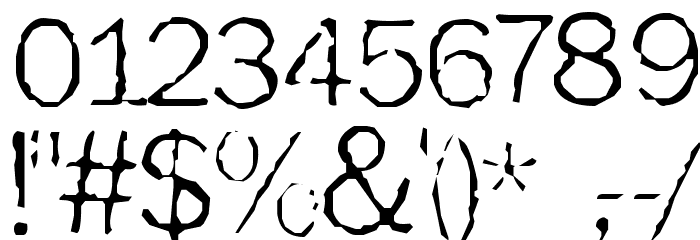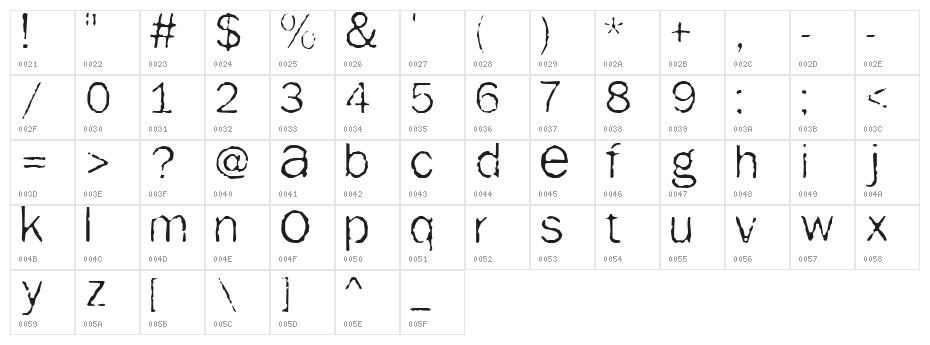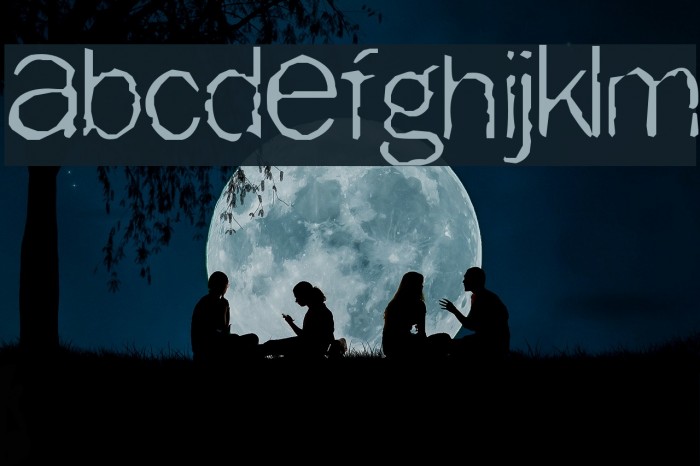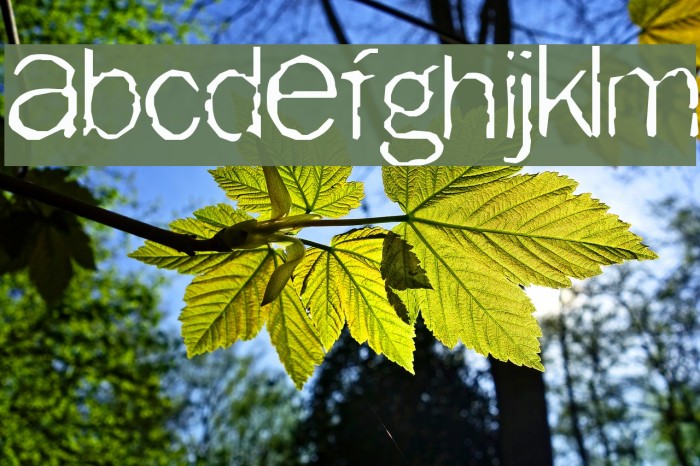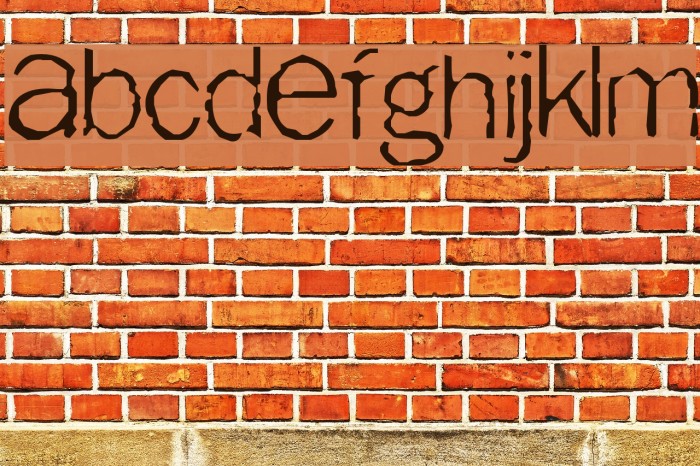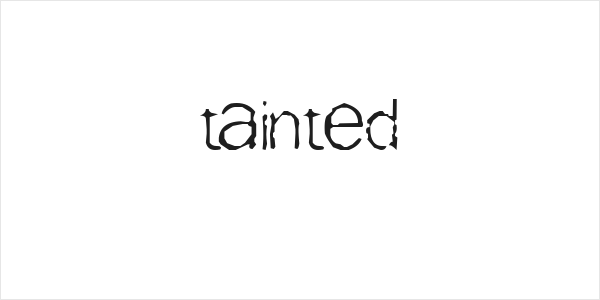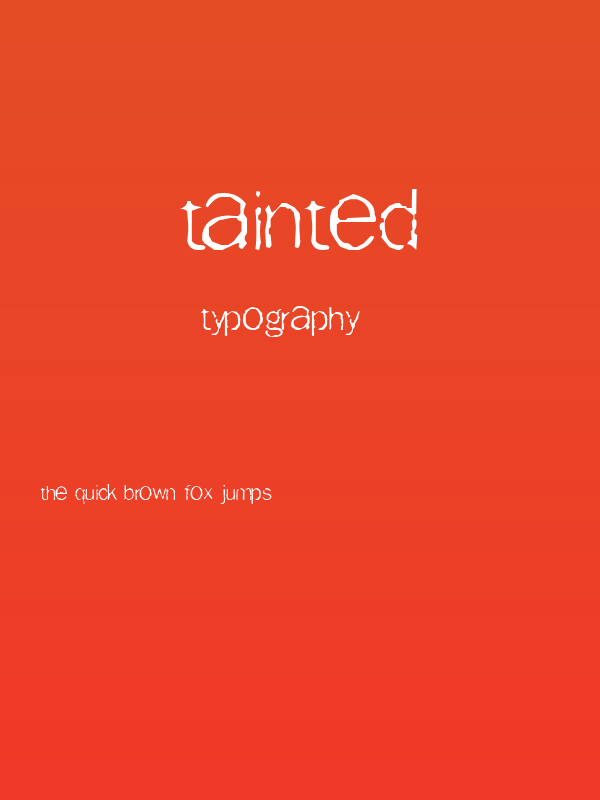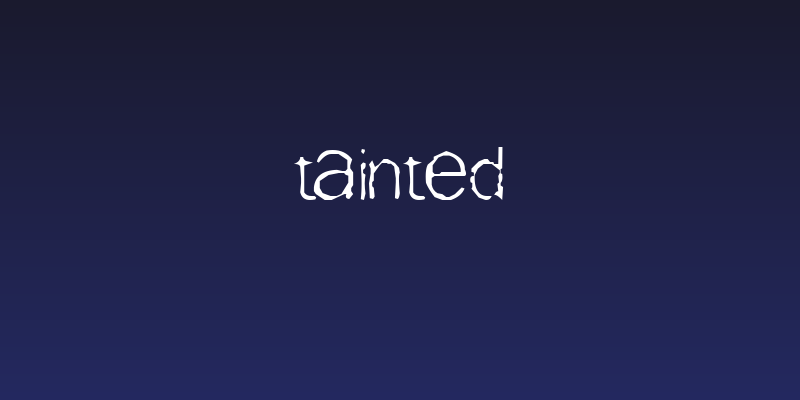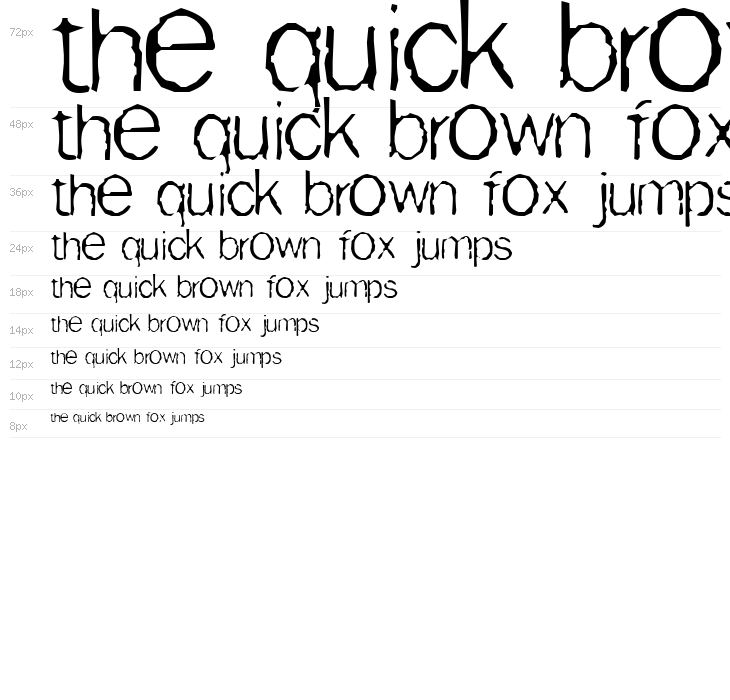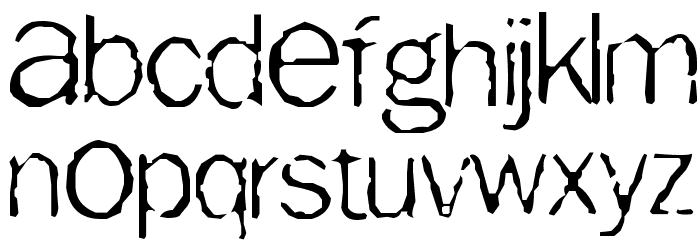
Tainted Font
Tainted Description
This font features a distressed and grungy aesthetic, characterized by irregular edges and a textured appearance that mimics the look of worn or eroded surfaces. The letters maintain a consistent height and width, providing a uniform structure despite their rough outlines. The numerals and special characters follow the same design principles, ensuring cohesion across all glyphs. This style evokes a sense of decay and imperfection, making it ideal for projects that require a raw and edgy feel. The font's unique appearance makes it stand out, offering a bold statement in any design.
| Overall Style | Grunge, Distressed |
| Proposed Projects | Ideal for album covers, posters, urban-themed designs, and branding that requires a gritty, raw aesthetic. |